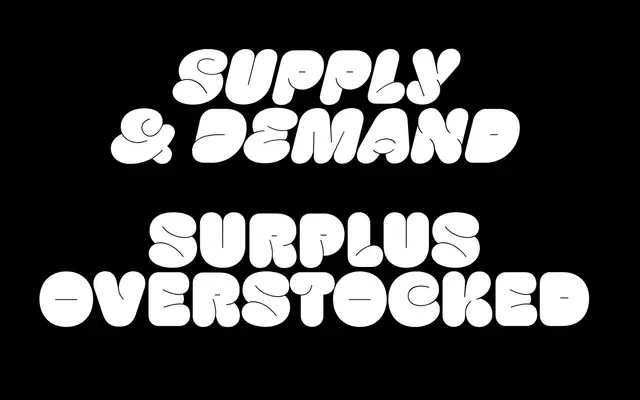
Hoss Extra
A four-font layered display family from PS Type Lab, pairing upright and italic cuts with matching shadow versions for stacked or dimensional typesetting.
Built around two core styles, Extra and Extra Italic, each accompanied by a Shadow variant, the family is designed for deliberate excess and decorative effect. The layering system allows the solid and shadow fonts to be combined for depth in headlines or poster work. Released as a pre-release, it signals an in-progress offering with a clear directional character already established.
A layered display type with shadow variants, designed for high-impact decorative use; its exaggerated, excess-driven character places it firmly in the display category.